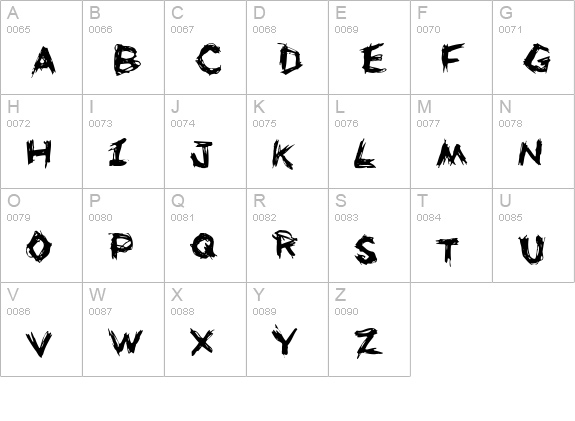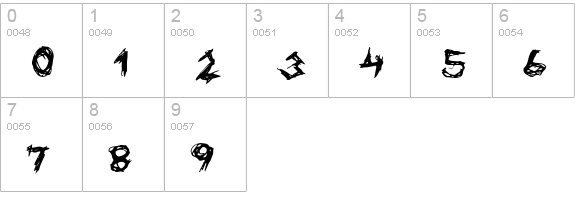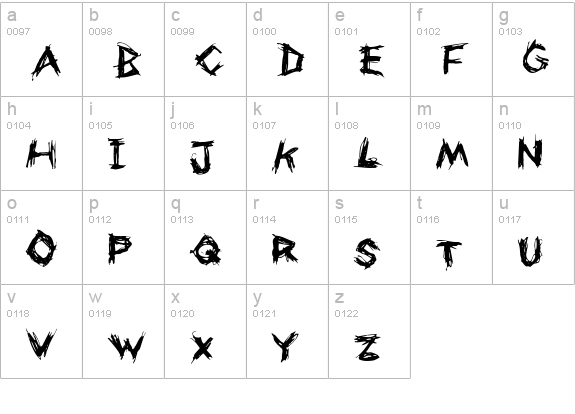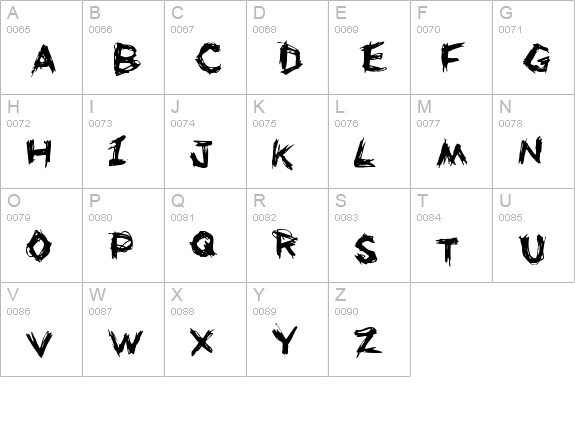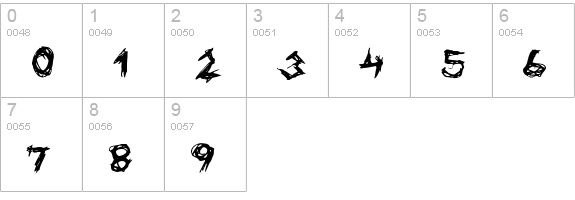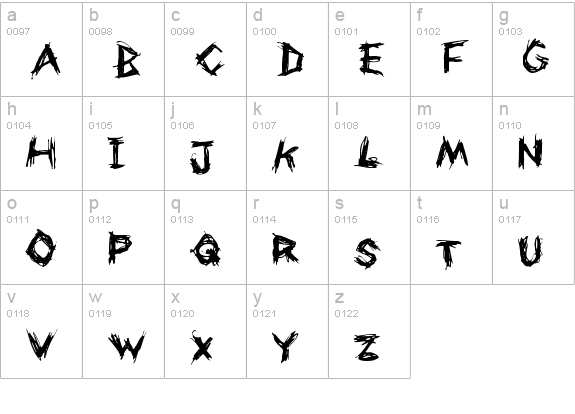
Uneasy Font Details
Uneasy font is a captivating and unique typeface that exudes a mysterious and unsettling vibe. With its edgy and irregular letterforms, this font is perfect for projects that require a touch of unease and intrigue. Each character is carefully crafted to create an uneasy atmosphere, giving your design a distinctive and memorable look. The Uneasy font is not only visually striking, but it is also incredibly versatile. Whether you are working on a poster, logo, website, or any other design project, this font will add a touch of uneasiness and captivate your audience. One of the best things about the Uneasy font is that it is free to download at FontsMarket.com. This means that you can easily access this amazing font without breaking the bank. It is a great opportunity to enhance your design projects with a font that is both visually appealing and freely available. So, if you are looking for a font that will bring a sense of unease and intrigue to your designs, look no further than the Uneasy font. Download it now from FontsMarket.com and unleash your creativity with this captivating and freely available typeface.